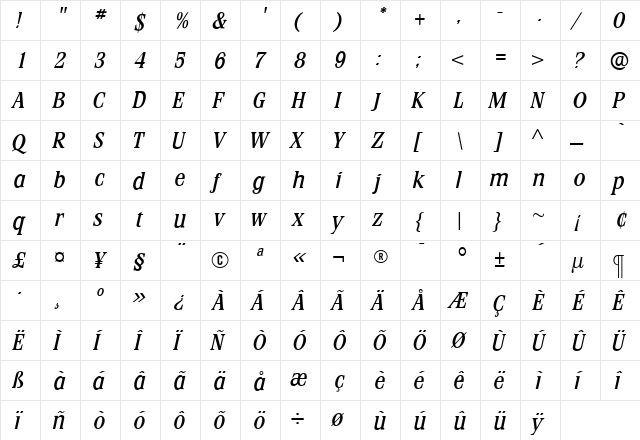
StirlingMediumItalic Roman Font Preview
StirlingMediumItalic Roman
StirlingMediumItalic Roman Font Details
Design Context for StirlingMediumItalic Typeface
StirlingMediumItalic is a composed and adaptable typeface that performs quietly and consistently across a wide range of design contexts. Its italic angle brings a sense of urgency and motion to the letterforms.
Pro Tip: Use StirlingMediumItalic for emphasis, pull quotes, and subheadings where its slanted energy can add rhythm to the layout.